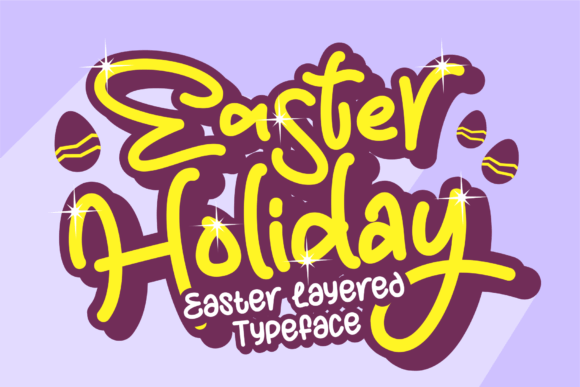
Hop into the World of Easter Holiday Font
As a designer, you know the feeling of getting stuck on a project and needing a little creative spark. Maybe you’re brainstorming ideas for a springtime campaign, or trying to come up with the perfect design for a children’s book. Whatever the case, we’re here to help you shake things up with the adorable Easter Holiday Font.
This charming handwritten font is the perfect addition to any Easter-themed project, from quotes and headings to logos and labels. Its layered design adds a touch of whimsy and fun, making it a standout choice for kids’ designs, Easter promotions, and springtime celebrations. Whether you’re a seasoned pro or just starting out, the Easter Holiday Font is a valuable tool in your design arsenal.
Easter Holiday Font Key Features
- Unique Characteristics: The Easter Holiday Font features a playful, cursive script with Easter-themed elements, such as eggs, bunnies, and flowers, making it perfect for holiday-themed designs.
Easter Holiday Font Review
I recently had the chance to review the Easter Holiday Font, and I must say it’s a unique addition to any designer’s collection. Here’s my honest take on this festive font.
- The Easter Holiday Font has a playful, whimsical feel that’s perfect for spring and Easter-themed projects.
- The font is highly customizable, with a range of color options and styles to choose from.
- The font is well-suited for digital use, with crisp, clear lines that render well on various devices.
- The font may be too festive for some designers, who may find it too “on-the-nose” for more subtle projects.
- The font’s customization options can be overwhelming for beginners, who may struggle to find the right balance of style and color.
- The font may not be suitable for print use, as the lines can become blurry or distorted at larger sizes.
Overall, I’d give the Easter Holiday Font 3.5 out of 5 stars. While it’s a great addition to any designer’s collection, it may not be the best choice for every project. With a little practice and patience, however, it can be a great tool for adding some festive flair to your designs.
The Easter Holiday Font is perfect for creating festive designs for Easter-themed parties, invitations, and decorations. It’s also great for adding a touch of whimsy to your social media posts, blog articles, and marketing materials.
To get the most out of the Easter Holiday Font, try pairing it with other spring-inspired elements like pastel colors, flowers, and Easter eggs. You can also use it to create a fun and playful headline or title.
Q: What is the recommended font size for using the Easter Holiday Font?
The recommended font size for using the Easter Holiday Font is between 12pt and 24pt. This will ensure that the font is legible and visually appealing in most design applications.